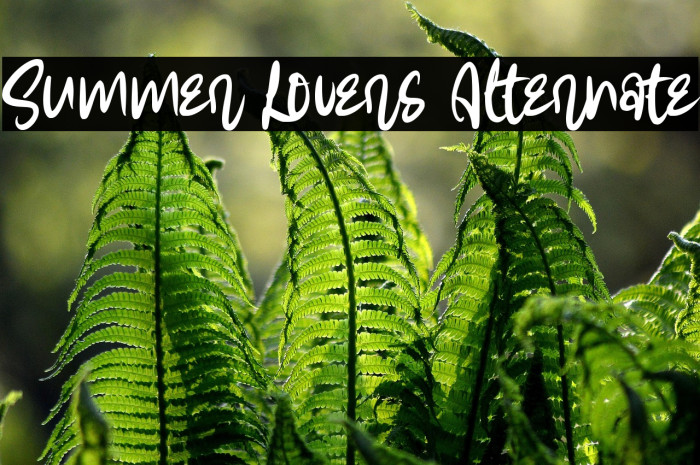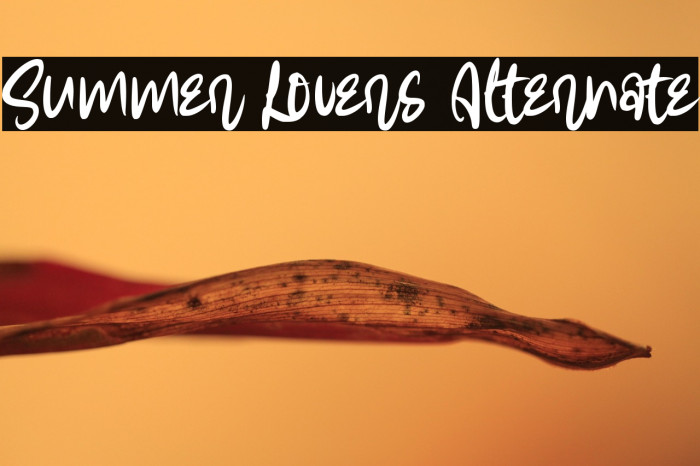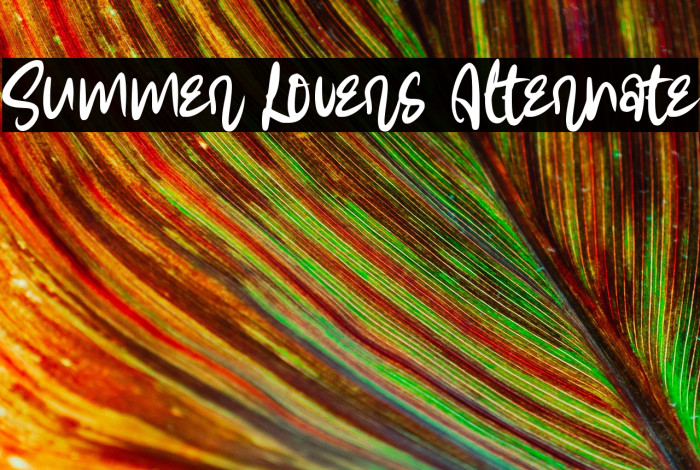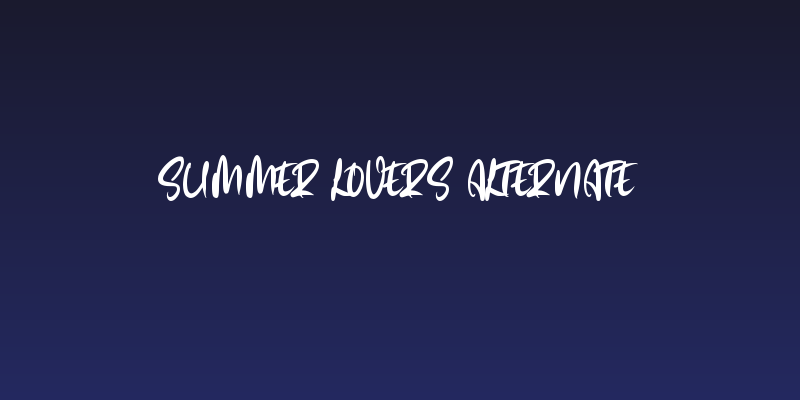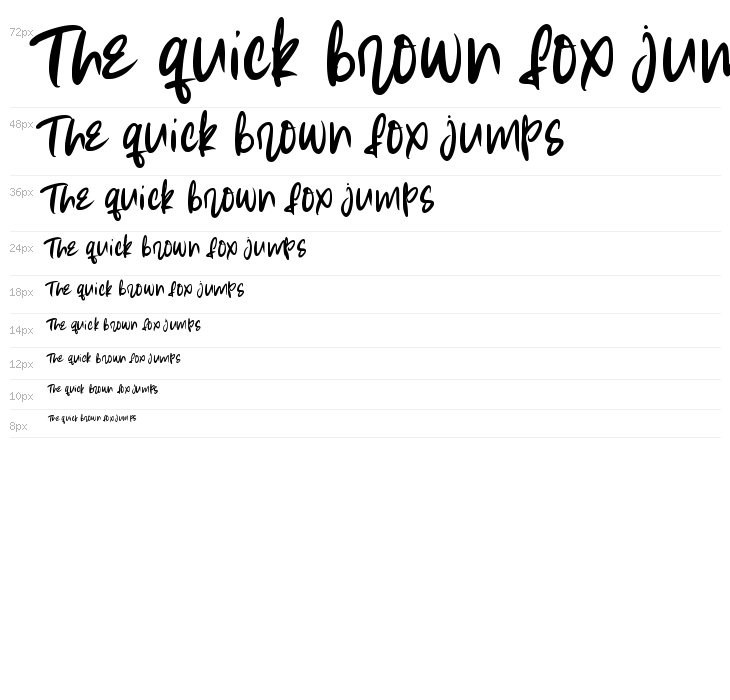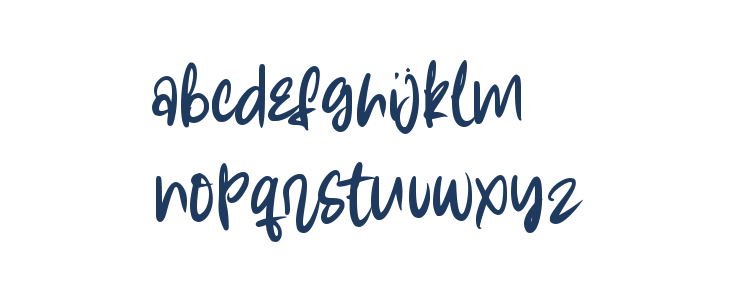
Summer Lovers Alternate Font
Summer Lovers Alternate Description
This font exudes a lively and energetic vibe with its bold, handwritten style. The letters are crafted with a playful flair, featuring smooth curves and a slightly irregular baseline that adds to its casual and friendly appearance. The uppercase and lowercase characters maintain a consistent flow, while the numerals and special characters complement the overall aesthetic. The strokes are thick, providing a strong presence, yet the overall design remains approachable and fun. This font is perfect for projects that require a personal touch, such as invitations, greeting cards, or branding for creative businesses.
| Proposed Projects | Ideal for invitations, greeting cards, creative branding, and social media graphics. |